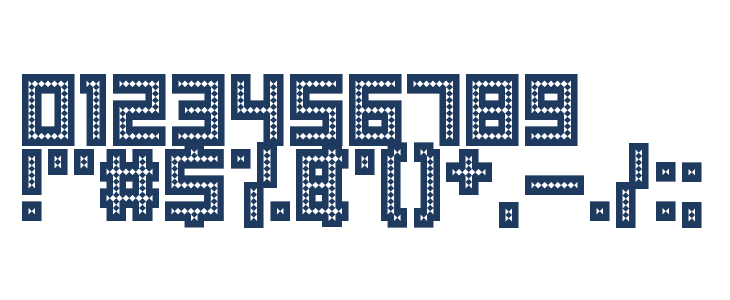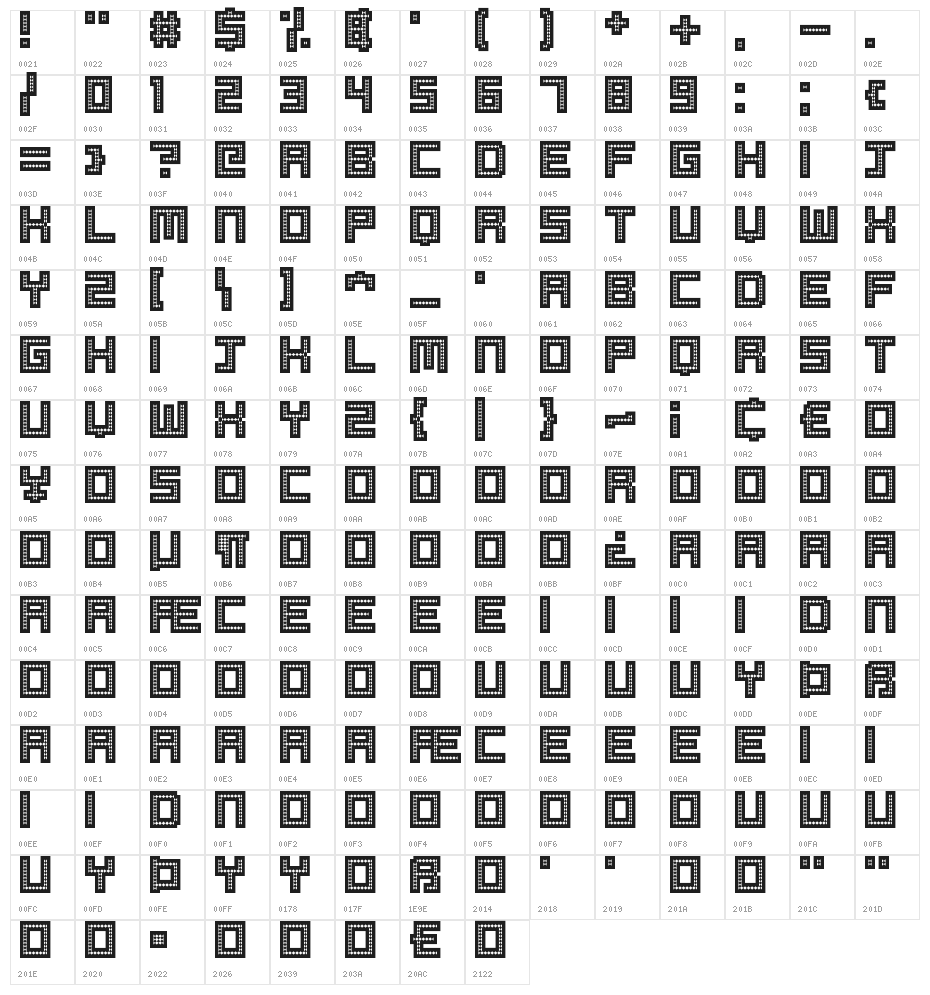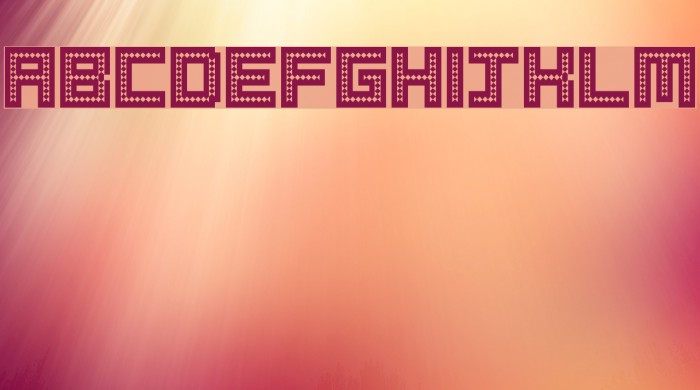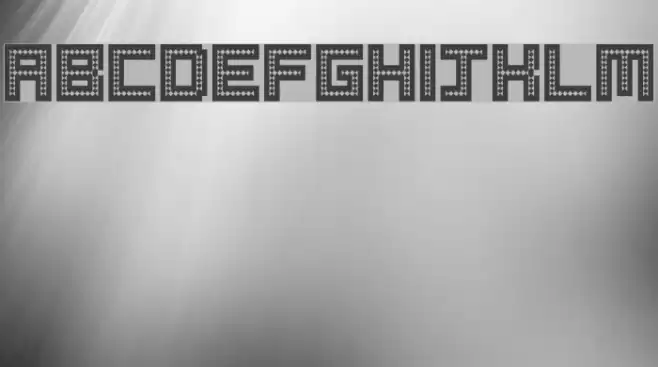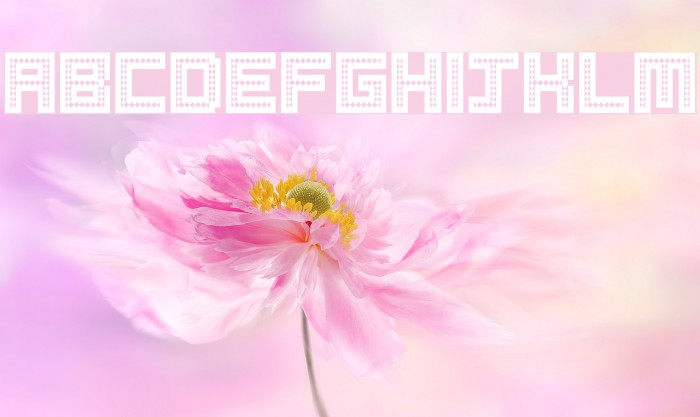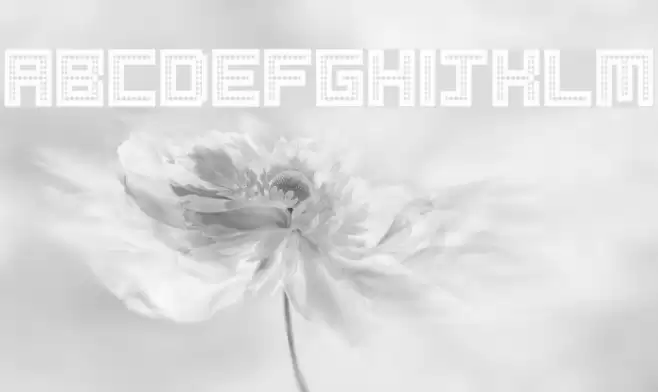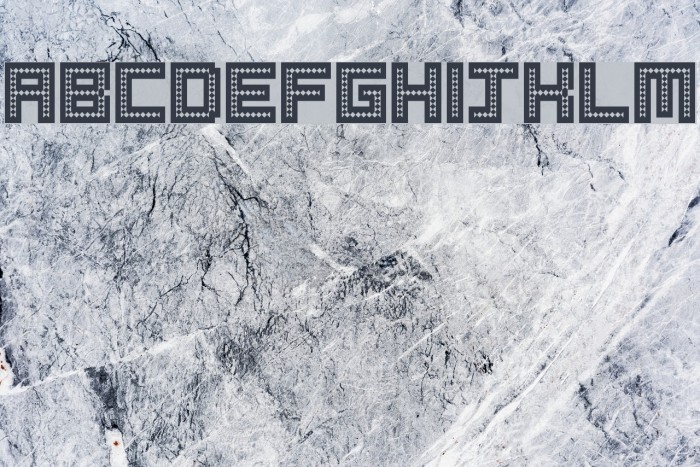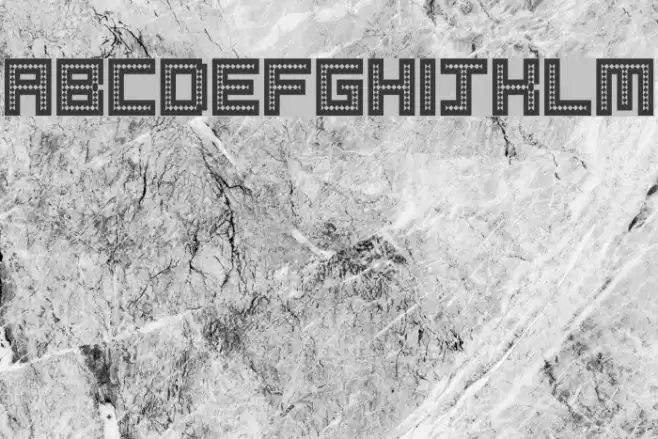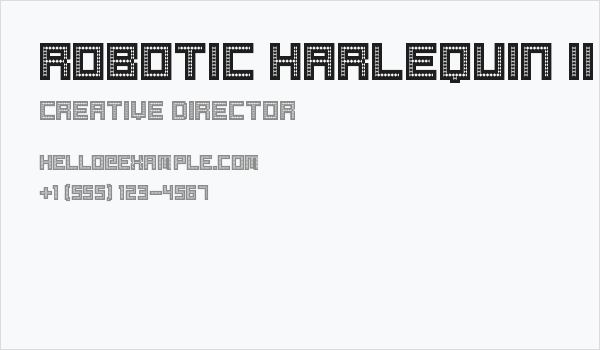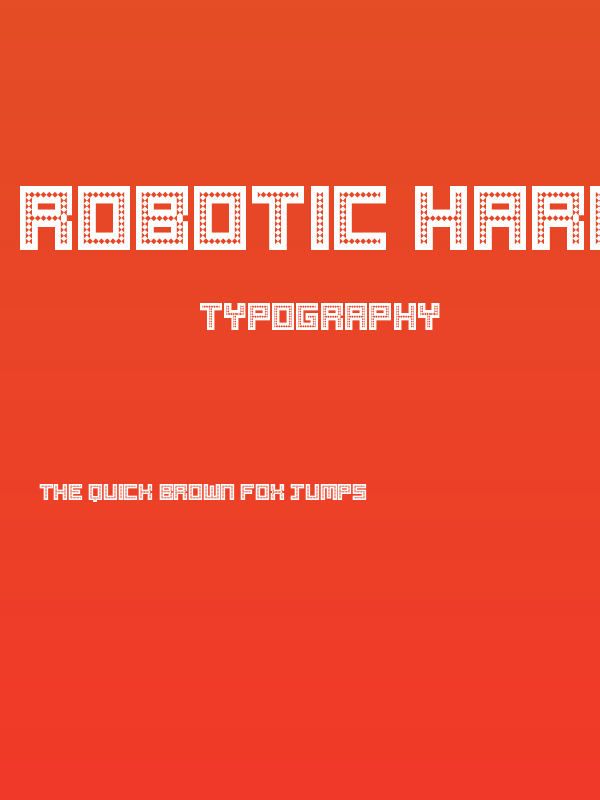
Robotic Harlequin II Font
Robotic Harlequin II Description
This font features a unique and playful design with a geometric, pixelated style. Each character is composed of a series of small, triangular shapes that create a dotted outline effect, giving it a digital and futuristic appearance. The bold, blocky letters are evenly spaced, ensuring readability while maintaining a decorative flair. The font's distinct style is reminiscent of retro video games or digital displays, making it ideal for projects that require a touch of nostalgia or a tech-inspired aesthetic. Its consistent structure across uppercase, lowercase, numbers, and special characters ensures versatility in various design applications.
| Overall Style | Modern, Retro |
| Proposed Projects | Ideal for video game graphics, tech-themed posters, digital art projects, and retro-inspired designs. |